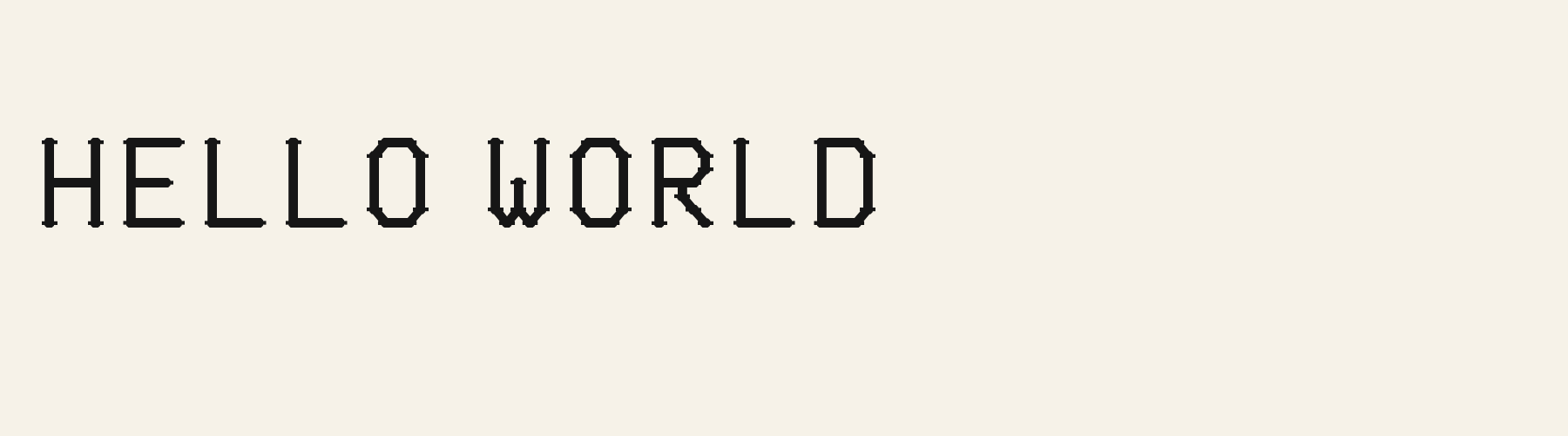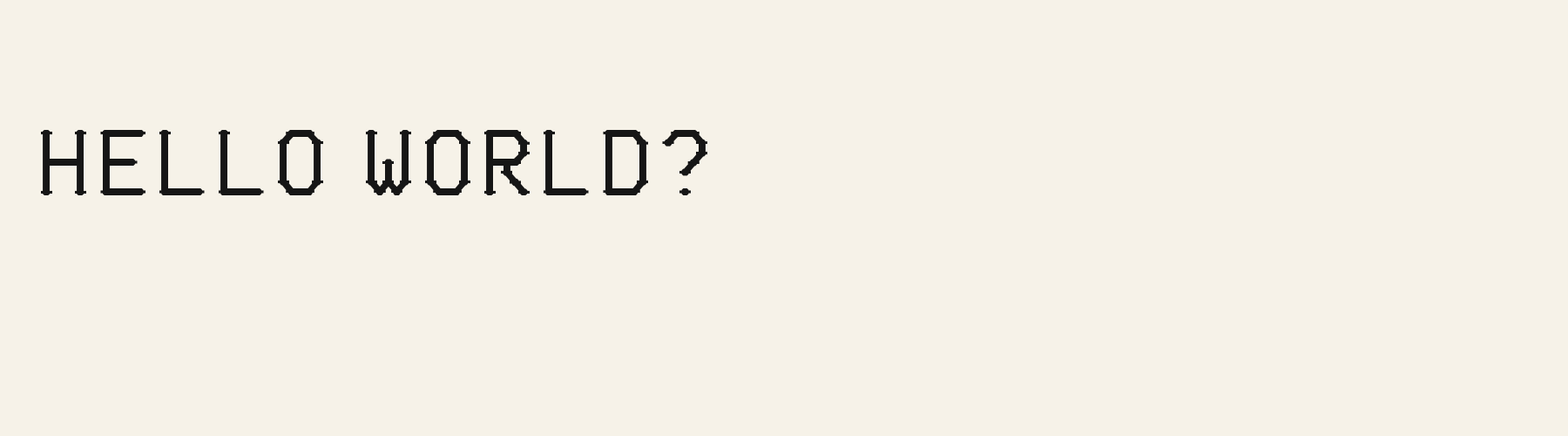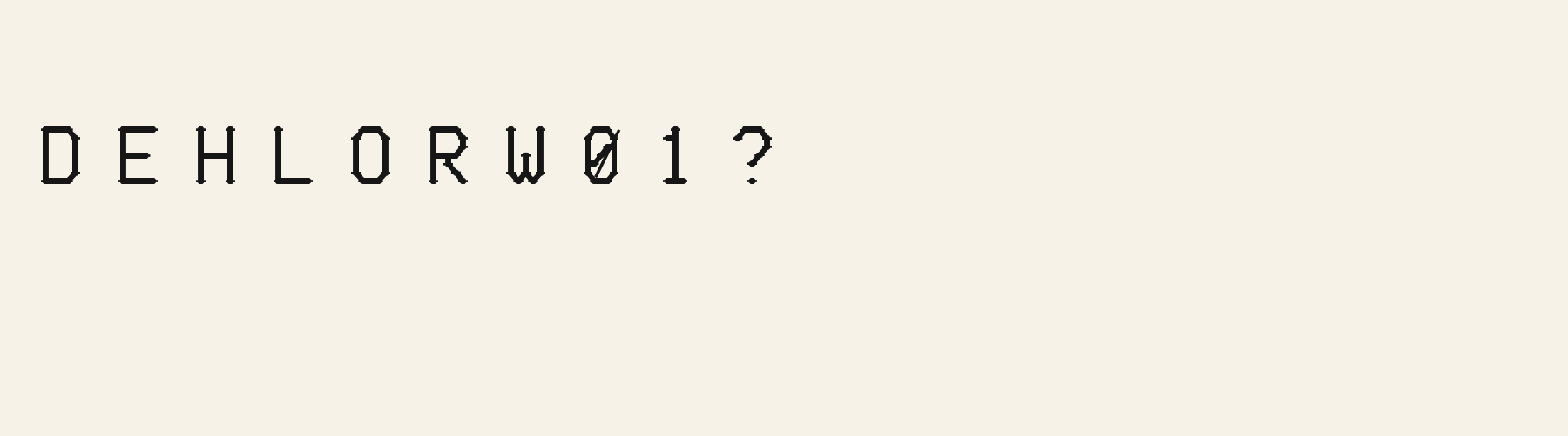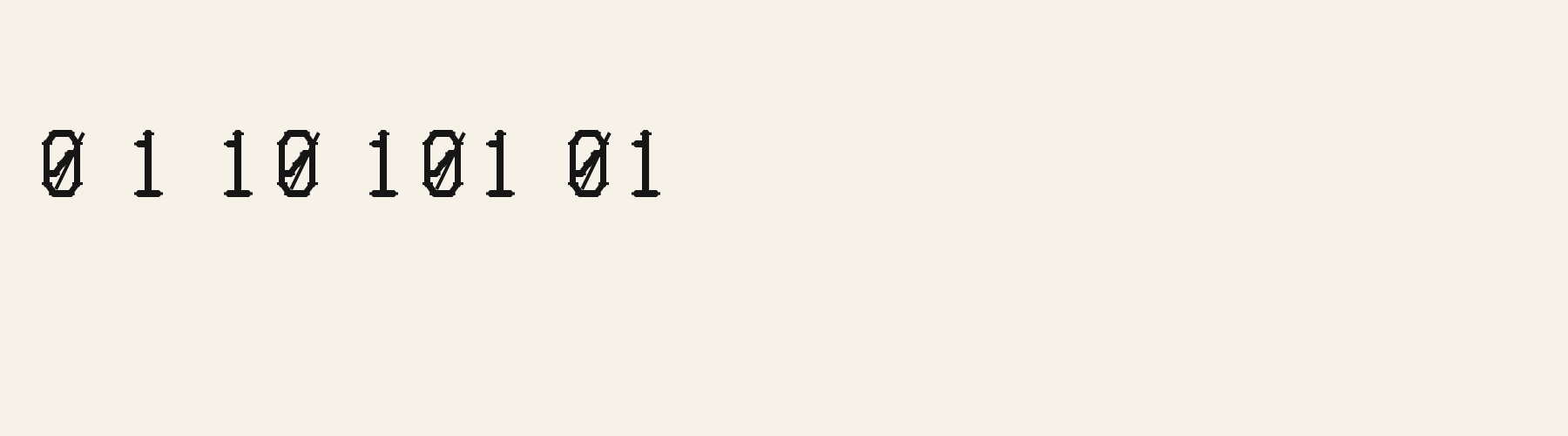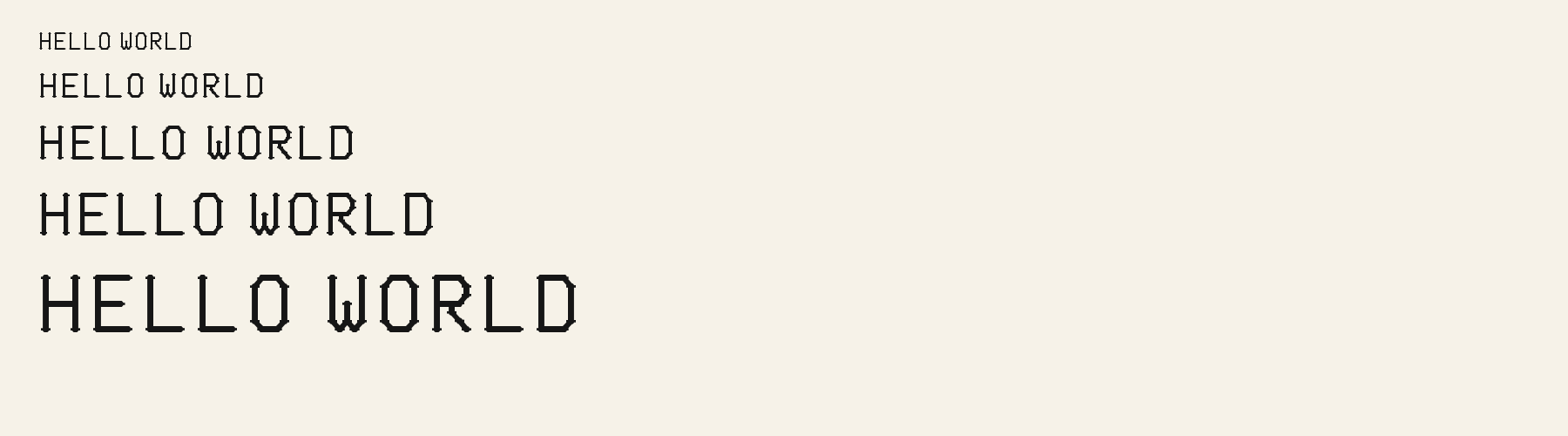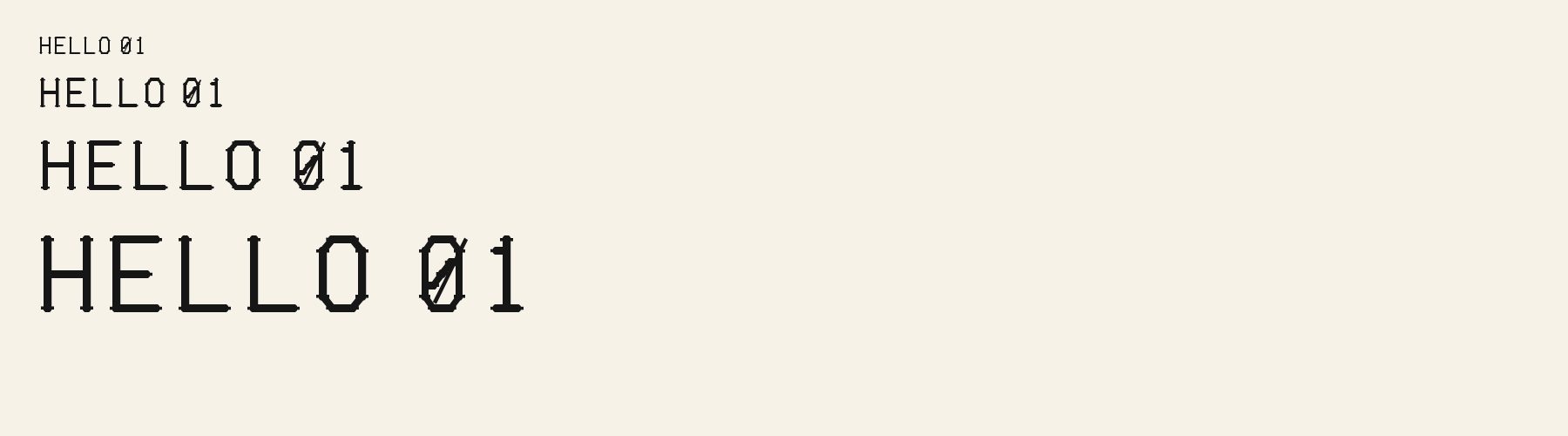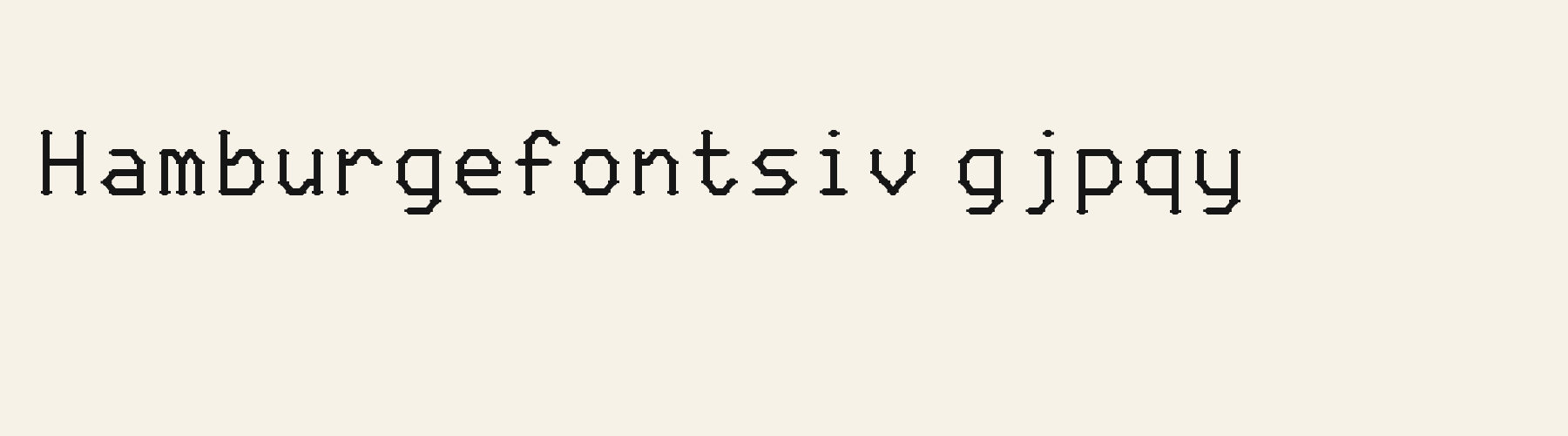
Slab Industrial Mono is a labels, technical notes, and utilitarian display copy. Sturdy monoline construction with restrained cut-corner ink traps. Best for labels, technical notes, and utilitarian display copy.